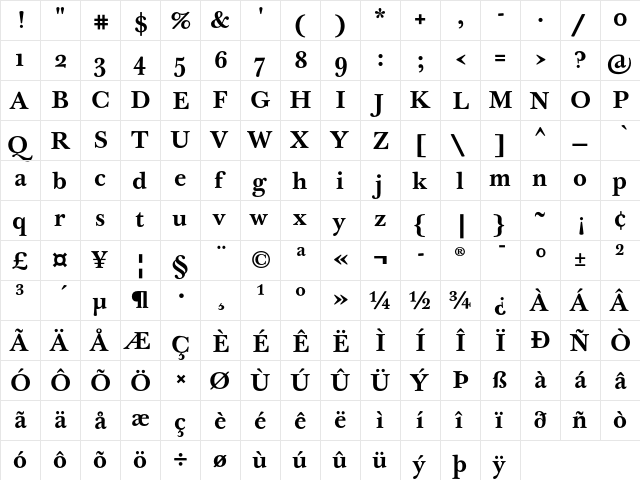
Baskerville Ten OT Bold
Design Context for Baskerville Ten OT Typeface
Baskerville Ten OT is a composed and adaptable typeface that performs quietly and consistently across a wide range of design contexts. The heavy weight commands attention and anchors typographic hierarchies.